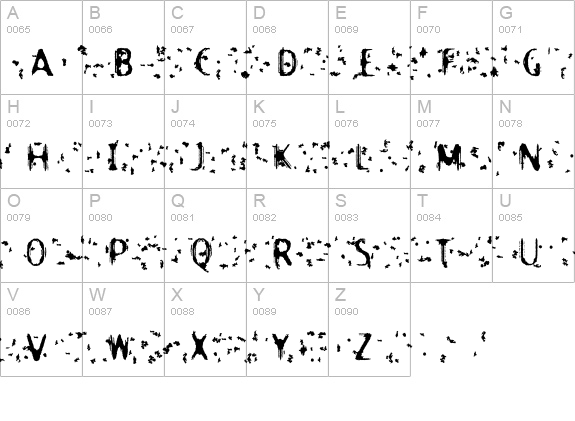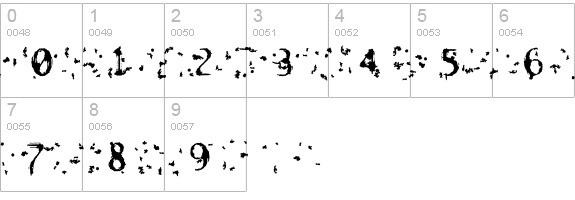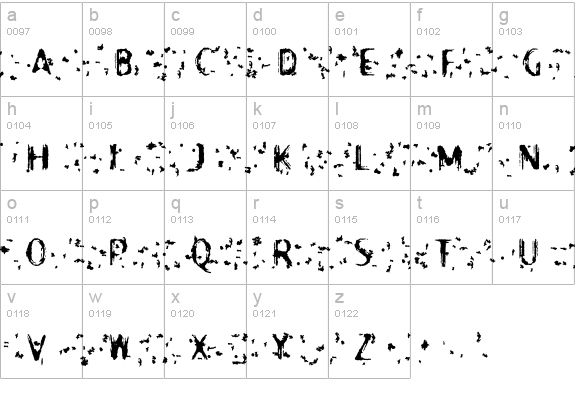
ReactorFB-Degrading Font Details
Introducing ReactorFB-Degrading font, a striking and captivating typeface that exudes a captivating sense of decay and deterioration. This unique font embodies an edgy and raw aesthetic, perfect for projects that require a touch of ruggedness and urban decay. ReactorFB-Degrading font showcases a stunning combination of bold strokes and worn-out textures, resulting in a visually engaging and authentic look. Its distressed appearance adds depth and character to any design, making it ideal for grunge-inspired artwork, album covers, posters, and more. One of the most remarkable aspects of ReactorFB-Degrading font is that it is available for free download at FontsMarket.com. This means that you can effortlessly incorporate this striking typeface into your projects without any additional cost. Whether you are a seasoned designer looking to add a unique touch to your portfolio or a beginner exploring the world of typography, ReactorFB-Degrading font offers immense creative possibilities without breaking the bank. With its freely available download, ReactorFB-Degrading font ensures that high-quality and visually captivating designs are accessible to all. Its versatility allows you to explore various design applications, from branding and packaging to social media graphics and website headers. The possibilities are limitless, and ReactorFB-Degrading font is here to empower your creativity. By choosing ReactorFB-Degrading font, you not only gain access to a remarkable typeface but also join a community of designers who appreciate the beauty in imperfection. Embrace the raw energy and captivating decay with this extraordinary font, freely available for download at FontsMarket.com. Elevate your designs and make a lasting impact with ReactorFB-Degrading font today.